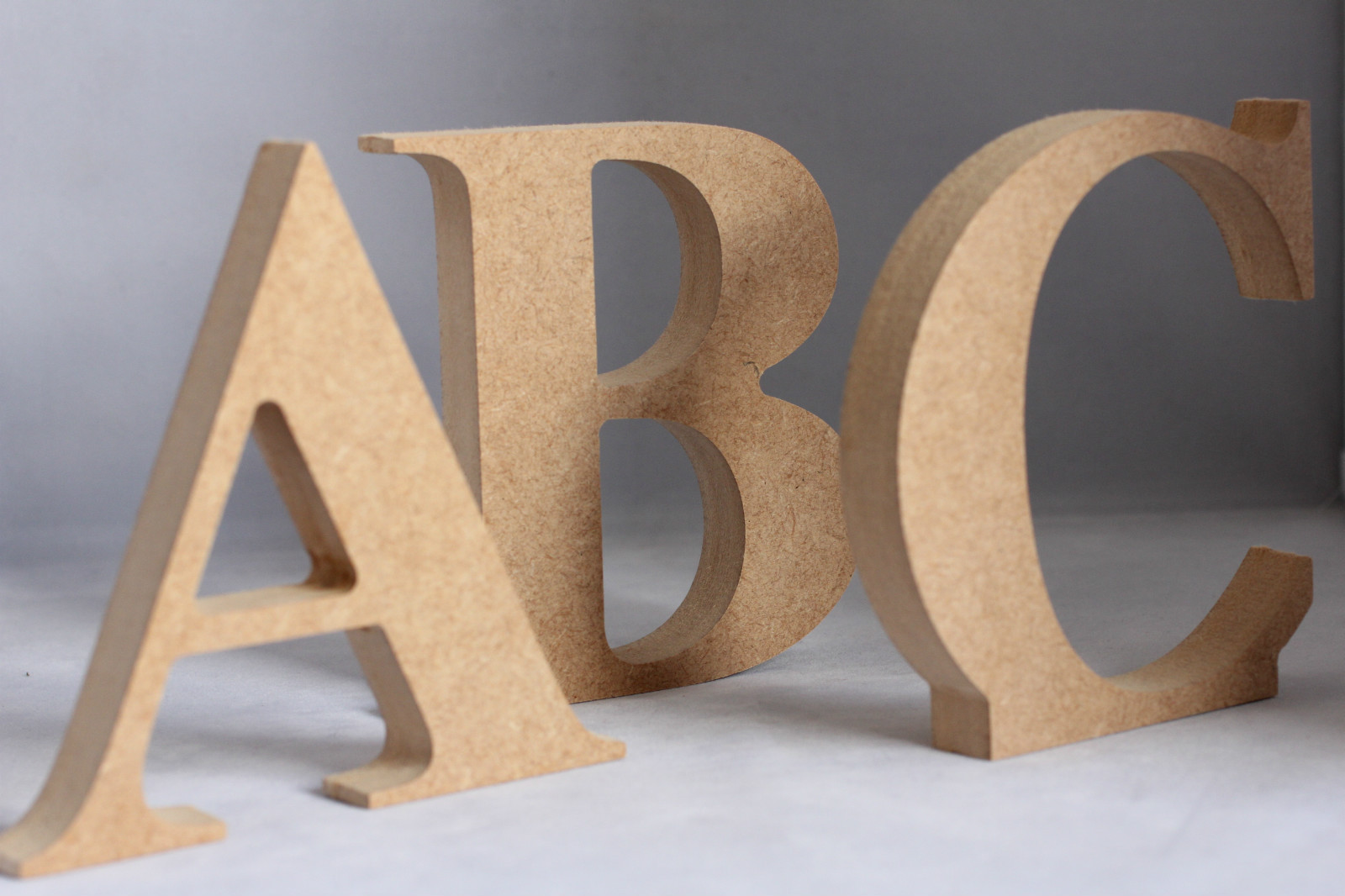
Hi could some one please help me i am trying (but not doing very well) to find a font that i can cut out letters out of 18mm mfd so they can stand up on there own.is there a font out there? also i want to cut a name out again in mdf but i want all the letters to be together as one thanks very much if someone can help me or point me in the right direction
What sort of size are you going to cut these letters at as this will help determine what might be suitable. Why do they need to stand by themselves as it wouldn't be difficult to support each letter from the back plus have you thought about how to deal with the centres of letters which would need to be supported.
As for letters being joined together then a script of some sort is probably the best way to go but again size will have to be taken into account as the stroke width may become to thin & fragile with certain scripts espexially if cut small.
Hi martin they are going to be 12" tall 18mm mdf i have seen a photo of letters that stand up but i cant find the font anywhere
Not sure what you mean by standing up but a photo would rsolve (as with the font type..)?
For joined script have a look at Mistral TTF which is what I use in vinyl...
If you post a picture I can probably tell you what they have used, I'm guessing a square type font. At that size they aren't going to be very stable though if only 18mm deep. Certain letters like "F P T V" may not work unless modified. You sure they didn't have a support behind them or a peg pushed into the ground.
Script wise something like commercial script wouldn't be to bad a choice, not the nicest script but easy enough to read & reasonable stroke width, kerning needs altering to join letters & then they would need welding together so they cut as one & not individual letters.
hi here is what i am looking for
That's just times roman with a flat added at the bottom, you could do that to just about any font you want. You just need to modify it in the cad software you are using, simple enough to do.
hi thanks for getting bk to me i know what you are saying but i am new to this not sure how to do this the letter are G and J i try ed to to add a bit to the letters in vcarve pro but it dont look right at all
Why can't you use any suitable font and then just change the outlines to geometries and then modify the bottoms to make them freestanding. the same applies to linking letters together to make words. If necessary I can draw something for you to show what I mean. Martins point about centre pieces would of course still apply and you would have to include supports or styalise the font. G.